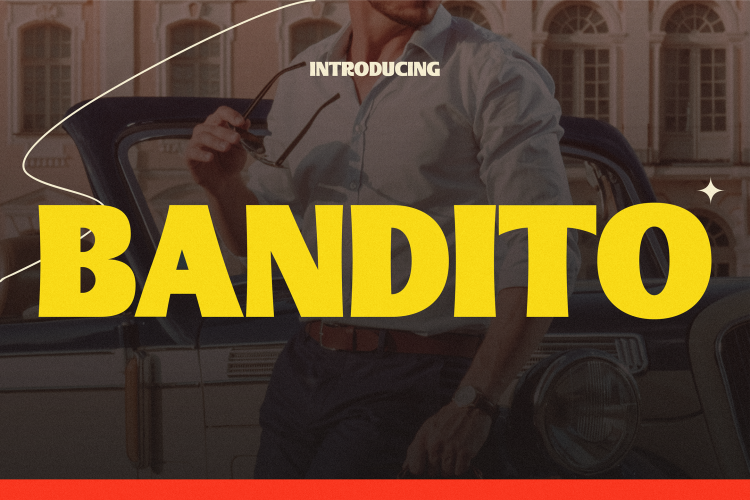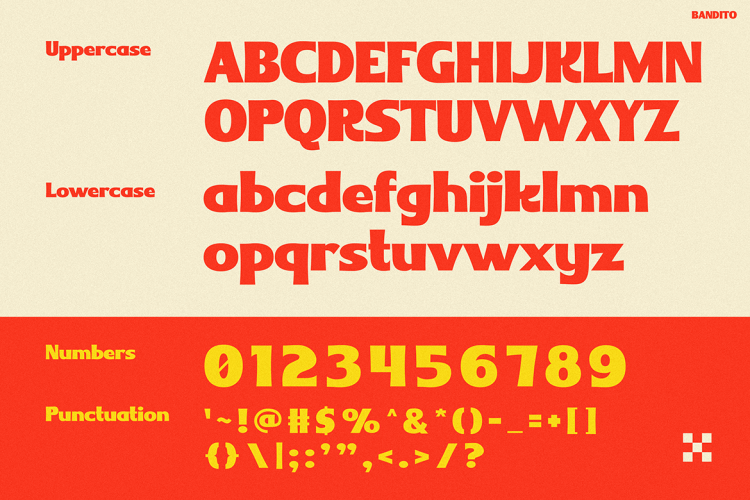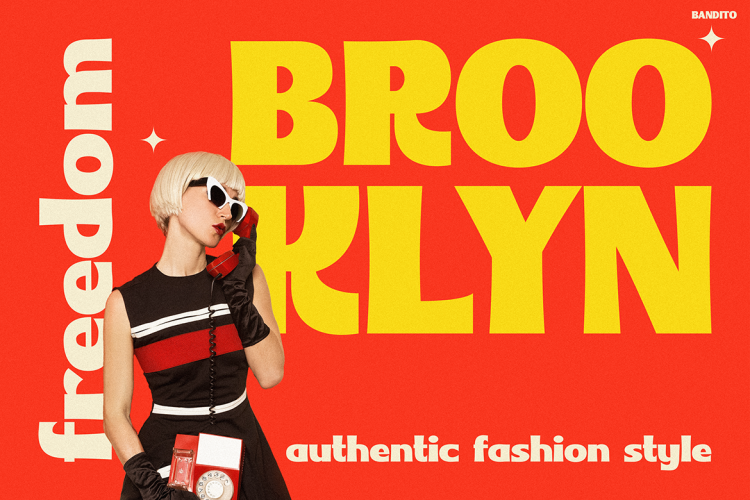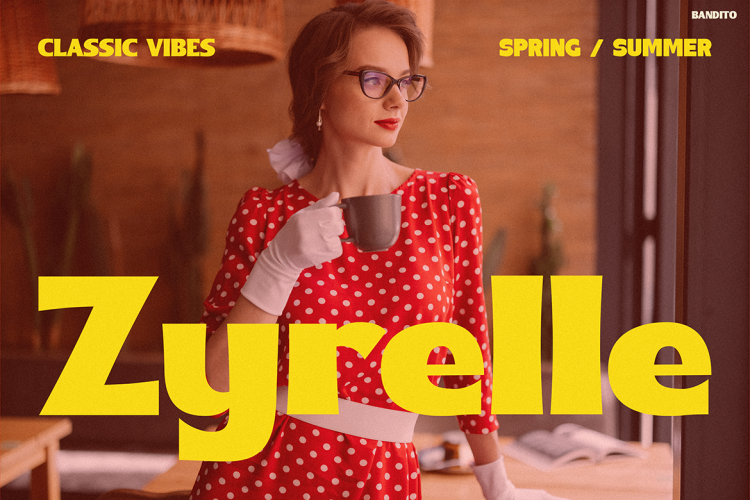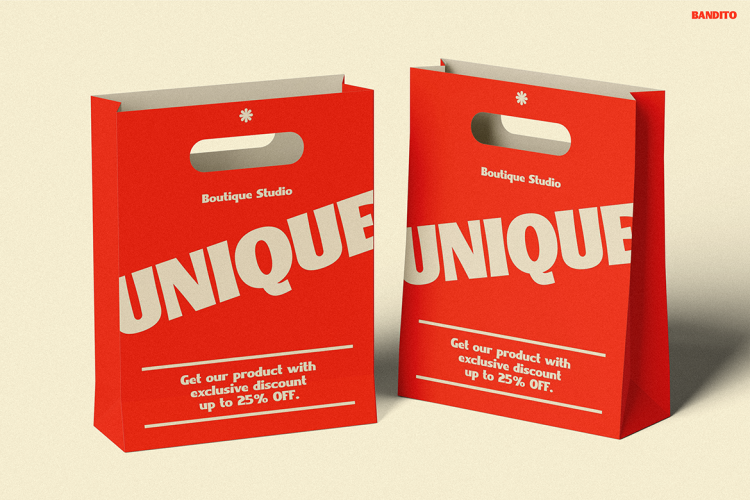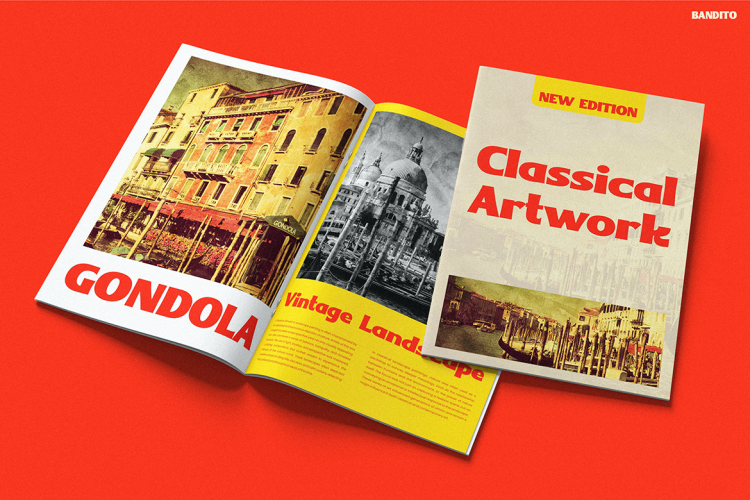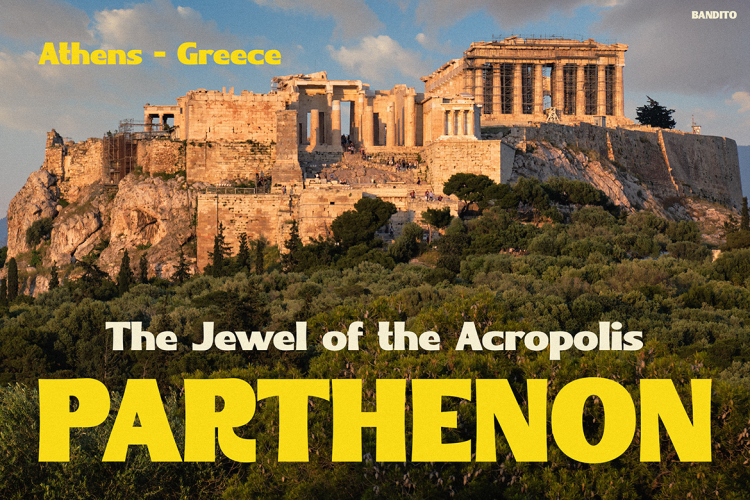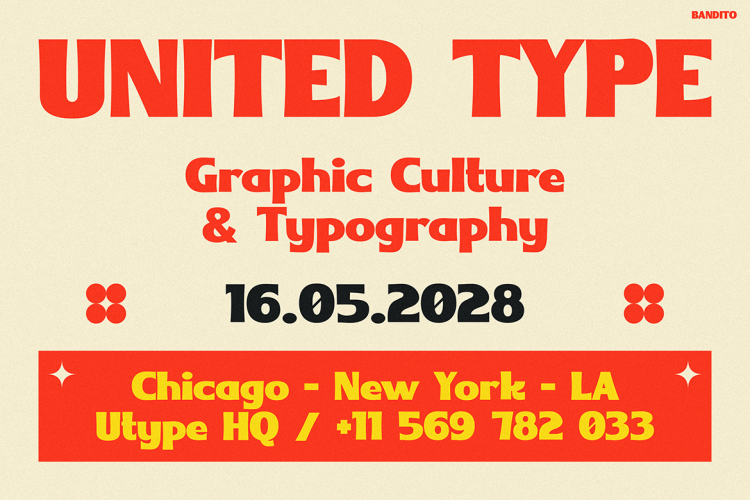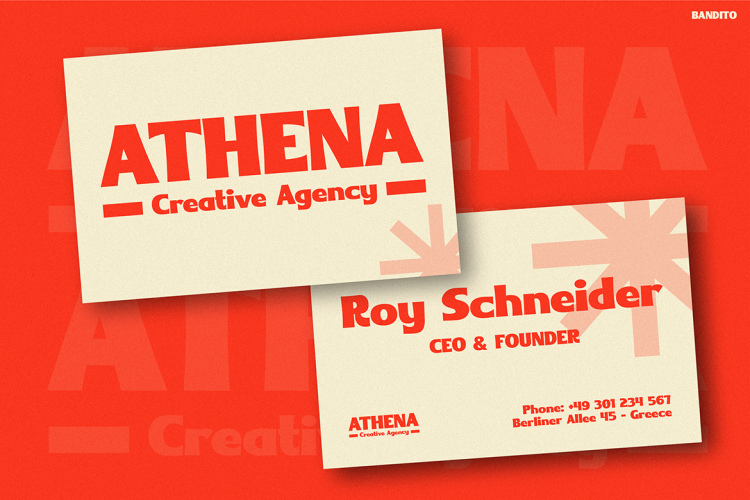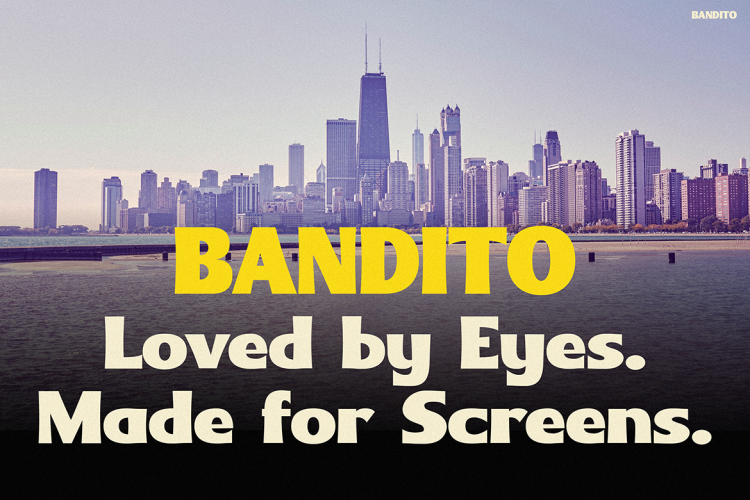
Retro Font BANDITO โ Bold Retro Energy That Commands Attention
Retro Font BANDITO bursts with personality and energy. This typeface instantly brings back the golden era of bold retro design while adding a fresh, modern edge. With its sharp curves and strong geometric lines, every letter projects confidence and rhythm. Moreover, the font radiates both nostalgia and creativity, making it perfect for designers who want to blend the past and present seamlessly.
Unlike ordinary display fonts, BANDITO stands out with a balance between power and charm. Its bold structure ensures clarity, while its stylish forms give your text an unmistakable retro character. As a result, every headline, poster, or digital visual becomes more captivating and memorable. Additionally, BANDITOโs clean details make it just as effective in small branding elements as in large-scale designs.
Perfect For Creators With Vision
BANDITO truly empowers designers who want their work to make an impact. It gives creative agencies, fashion brands, and digital artists the perfect tool to express identity with confidence. You can use it effortlessly for logos, posters, packaging, magazines, websites, social media graphics, and advertising campaigns.
Because of its flexibility, BANDITO adapts beautifully to different moods and themes. You can pair it with minimalist layouts for a modern feel, or combine it with vibrant colors for a more expressive, nostalgic look. Its uppercase letters shout strength and authority, while the lowercase offers a friendly, welcoming vibe. Furthermore, the numbers and punctuation flow harmoniously with the letterforms, maintaining visual consistency in every design.
When you choose BANDITO, you gain a typeface that amplifies your message rather than just decorating it. Every project feels more intentional, expressive, and alive.
Turn Every Word Into a Statement
Retro Font BANDITO gives your words attitude, emotion, and undeniable presence. If you want to grab attention, evoke nostalgia, and project modern confidence, this font delivers it all.
So, bring your vision to life with powerful type. Use BANDITO to make every design speak louder, every headline pop brighter, and every project leave a lasting impression.
Because great design deserves a font that speaks boldlyโchoose BANDITO.